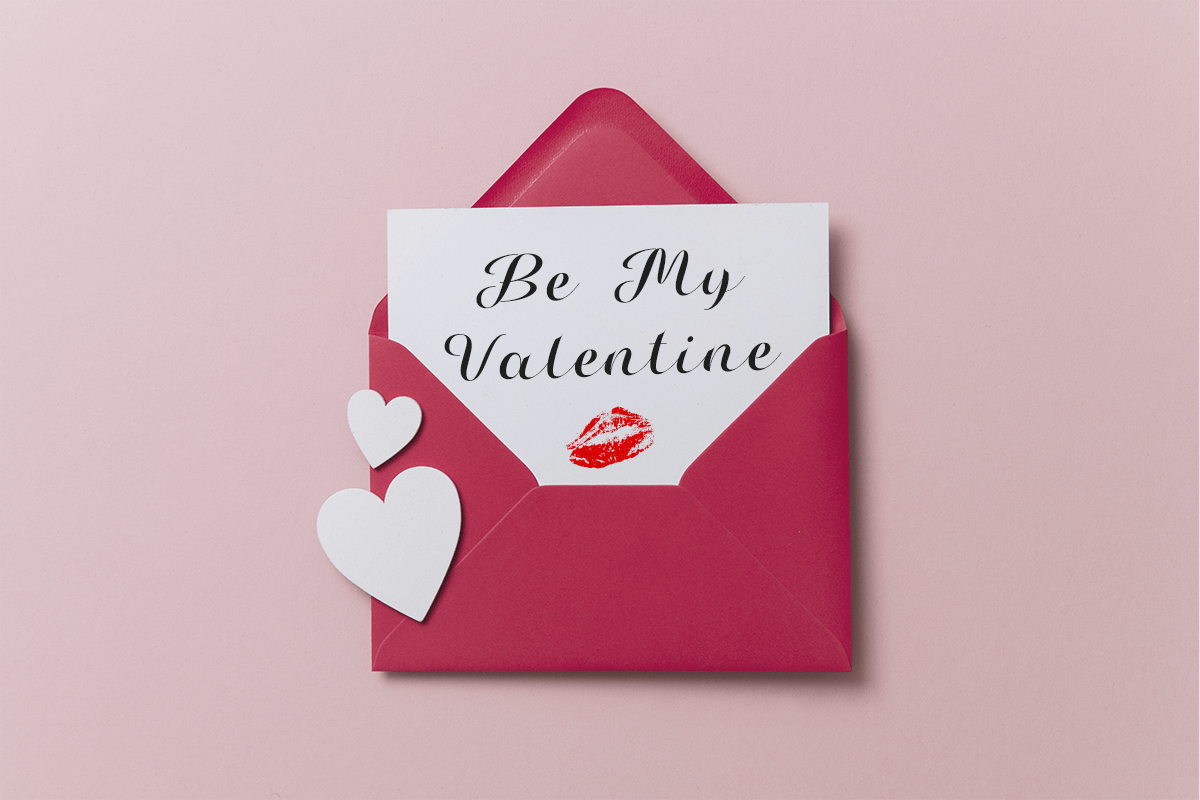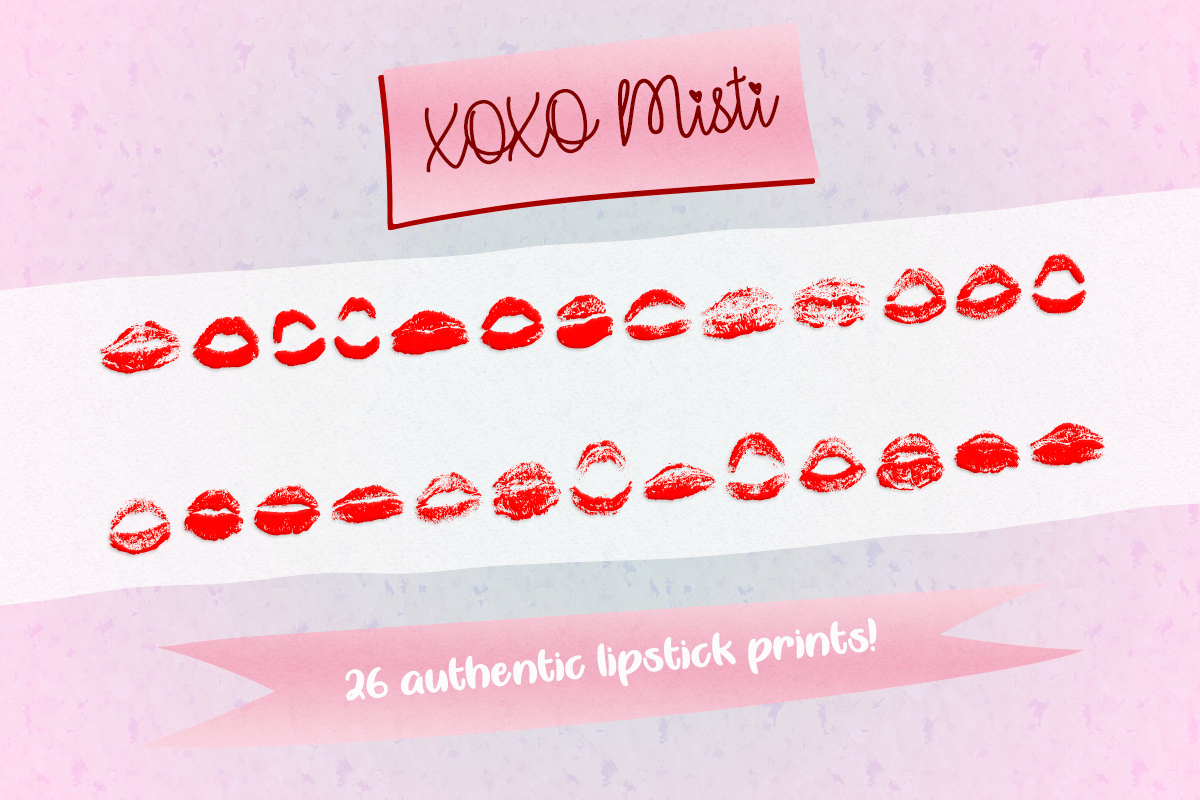
Xoxo Misti
Xoxo Misti 2
Xoxo Misti Flag
XOXO Misti is a lovely dingbats font that contains different lips. It will add a romantic touch to any crafting project!